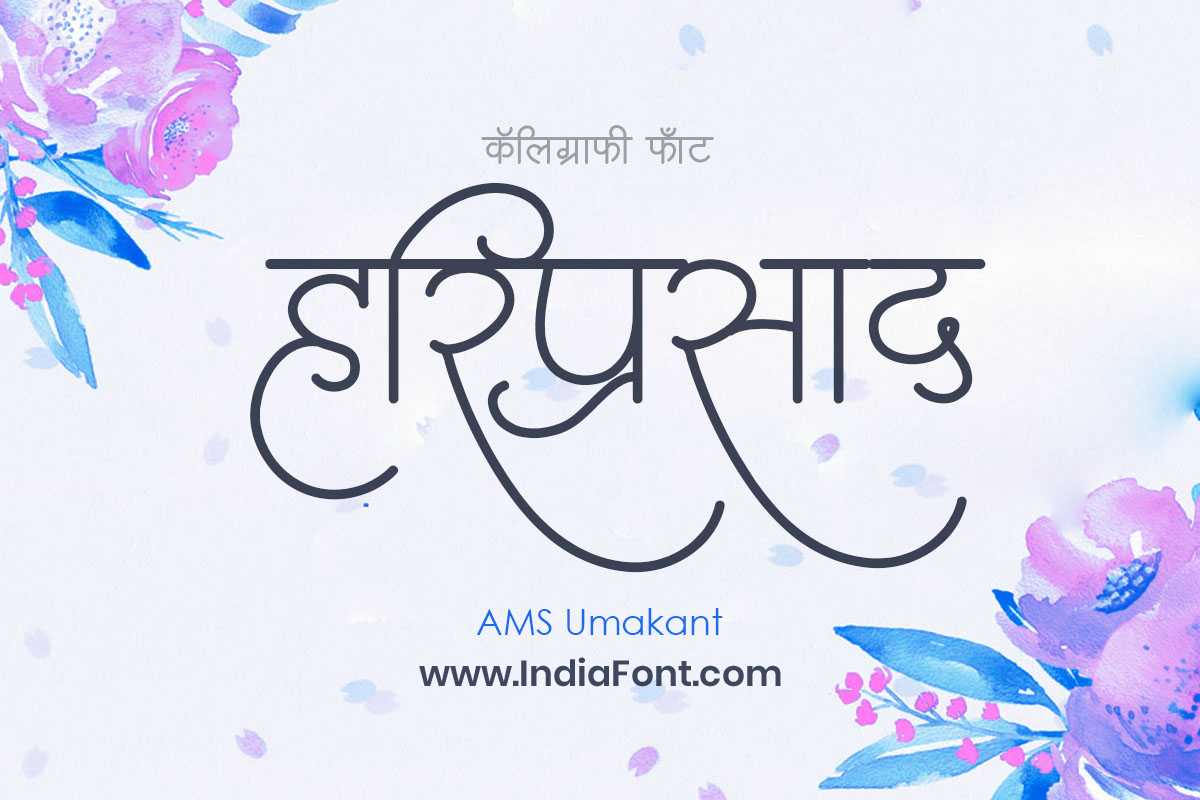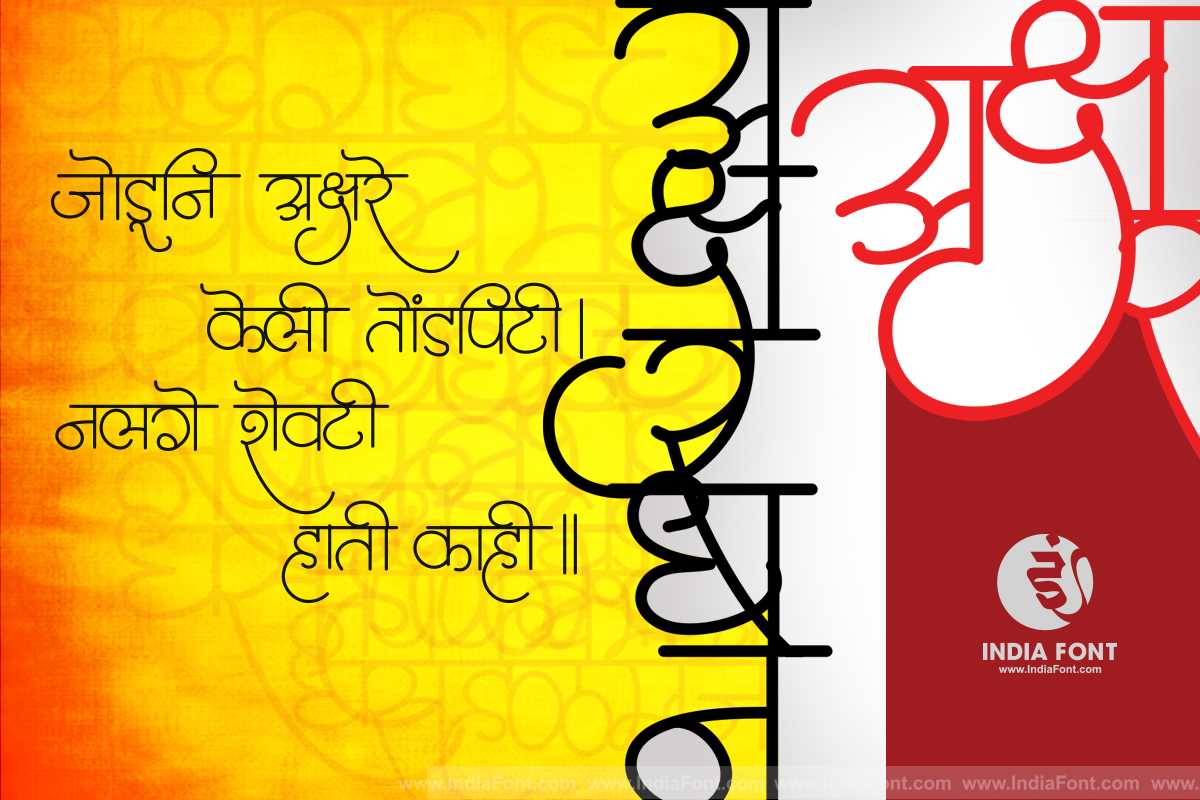
AMS Umakant
Unleash your creativity with AMS Umakant, a calligraphy font that brings a touch of elegance and sophistication to your designs. This font is perfect for designers looking for stylish Hindi fonts, calligraphy fonts that exude a sense of artistic expression, or fonts that offer a unique font style download.
AMS Umakant font design inspiration and usage example
AMS Umakant typography showcase and design sample
About AMS Umakant Font
Unleash your creativity with AMS Umakant, a calligraphy font that brings a touch of elegance and sophistication to your designs. This font is perfect for designers looking for stylish Hindi fonts, calligraphy fonts that exude a sense of artistic expression, or fonts that offer a unique font style download. This calligraphy font combines elegance with functionality, making it perfect for various design applications.
AMS Umakant is a professionally crafted calligraphy typeface that brings clarity and style to your projects. Designed with attention to detail, it supports hindi and marathi characters flawlessly.
Whether you're working on wedding-materials, invitations, logos, or other creative projects, AMS Umakant delivers consistent performance across both digital and print media. This carefully designed typeface ensures readability and visual appeal in all your design work.
About AMS Umakant Typography Style
AMS Umakant is a professionally crafted calligraphy font that exemplifies modern Hindi typography design. This free font is perfect for designers seeking professional branding and logo design projects.
Available in 1 weight and supporting hindi, marathi scripts, AMS Umakant offers exceptional versatility for both digital and print media. Whether you're working on wedding-materials, invitations, logos, this carefully designed typeface ensures consistent quality and professional results across all your typography projects.